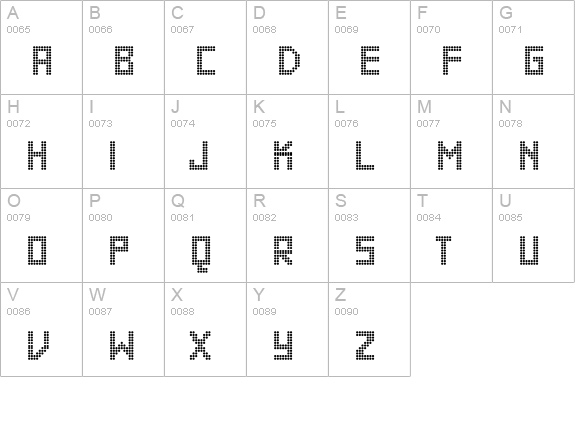
PFOnlineOnePro-Double Font Details
Introducing PFOnlineOnePro-Double font, a sleek and modern typeface that is perfect for a wide range of design projects. This versatile font combines elegance with readability, making it ideal for both digital and print applications. PFOnlineOnePro-Double features a unique double-line design that adds a touch of sophistication to any text. Whether you're creating a logo, website, or marketing materials, this font will make your content stand out. The best part? PFOnlineOnePro-Double font is available for free download at FontsMarket.com. Simply visit the website to access this high-quality font and elevate your design projects with its professional look. Don't miss out on the opportunity to enhance your work with this stylish and contemporary typeface. Download PFOnlineOnePro-Double font today and take your designs to the next level!